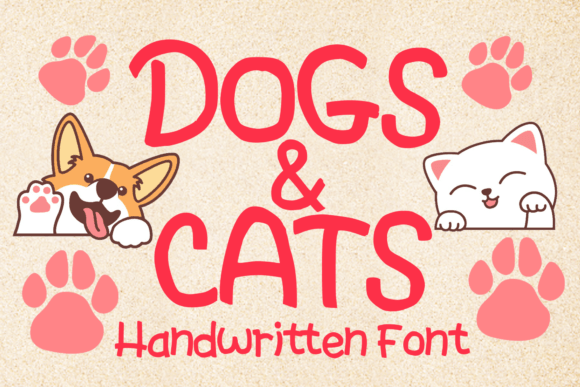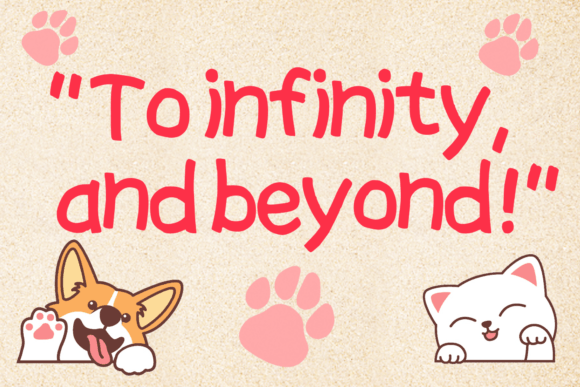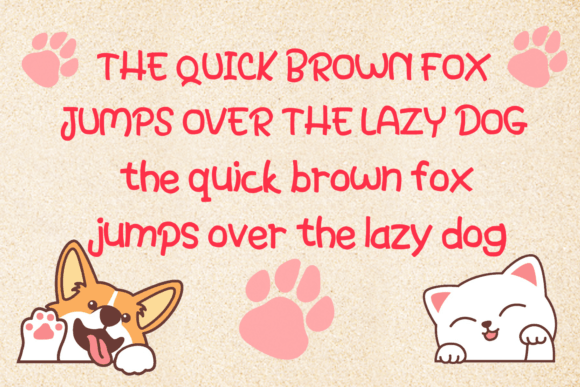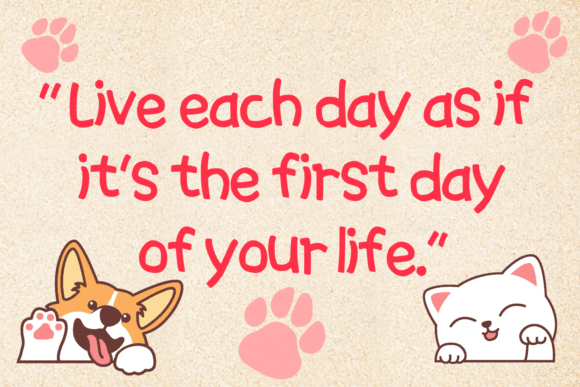
Dogs and Cats
About Dogs and Cats
Dogs and Cats is a fun and playful handwritten font. You can use it for anything ranging from t-shirts, kids’ book designs, and greeting cards to stickers and posters, or anything that needs a casual touch. Fall in love with its incredibly versatile style and use it to create lovely designs!